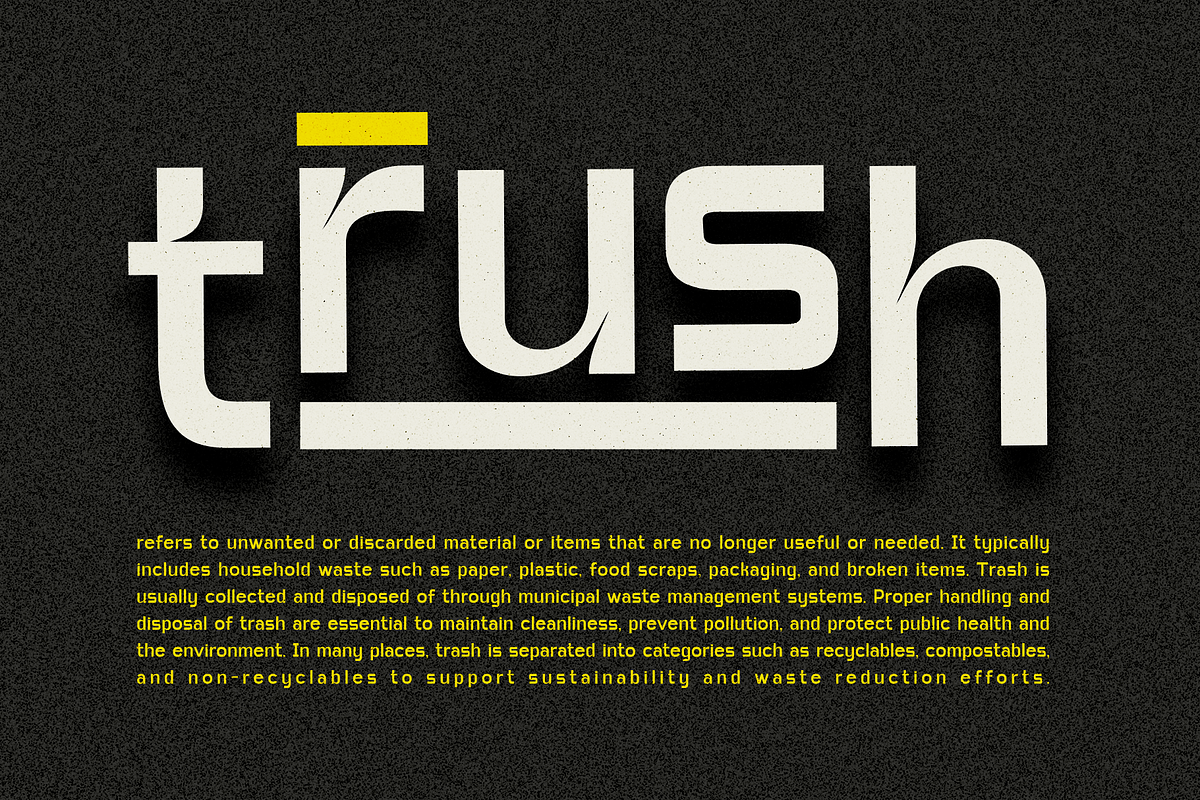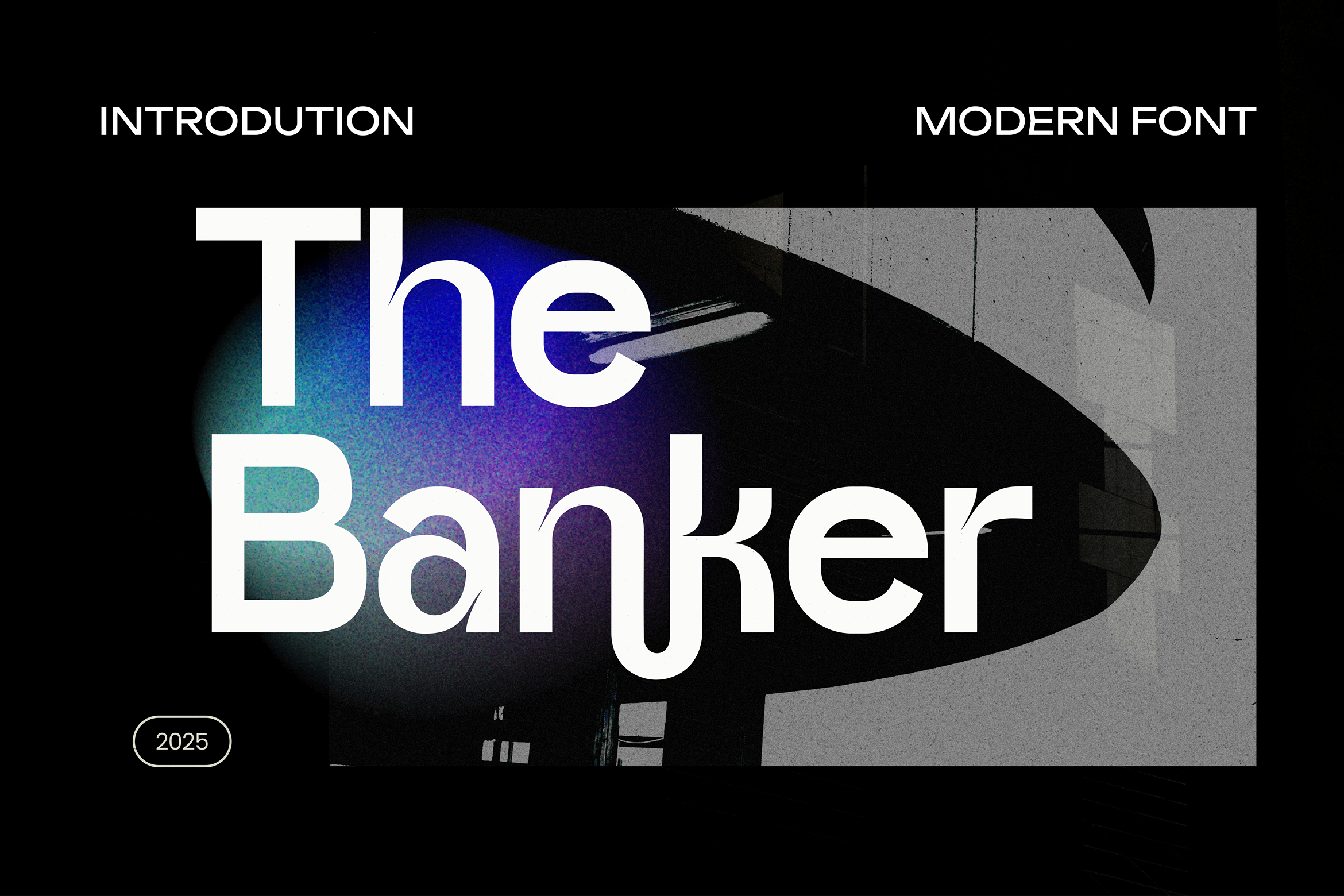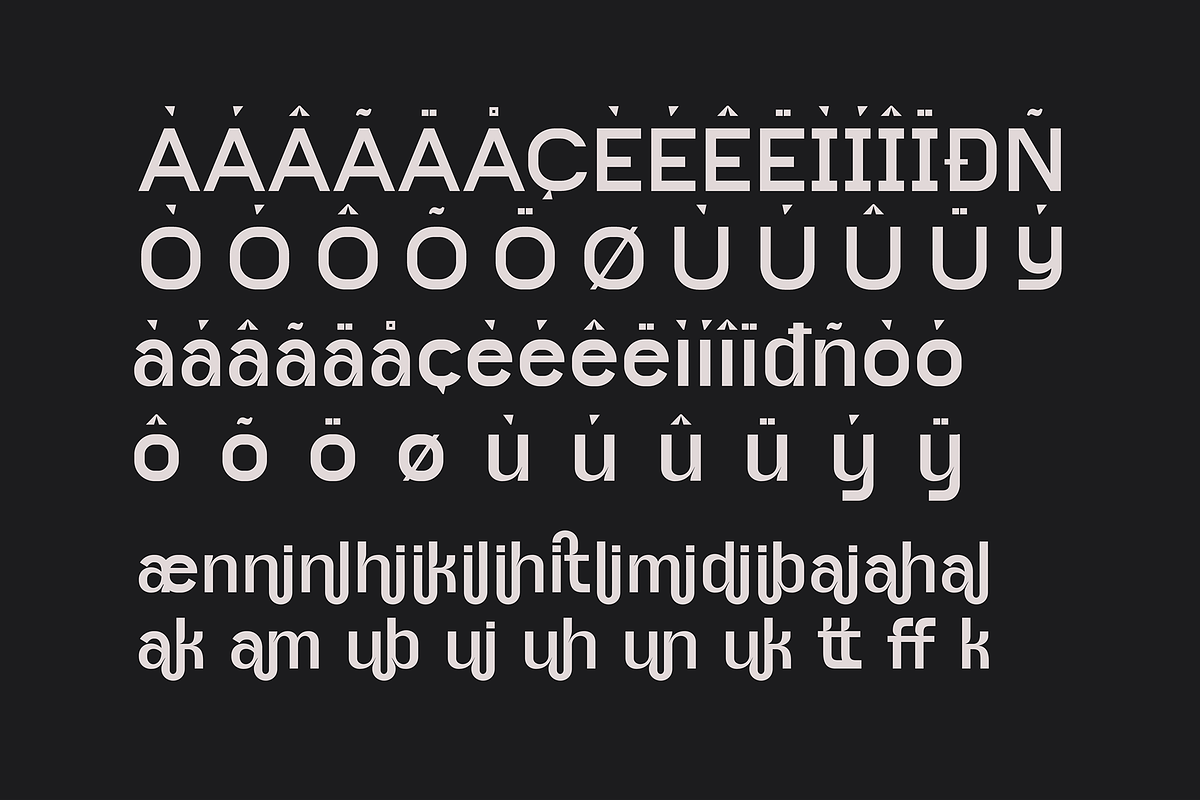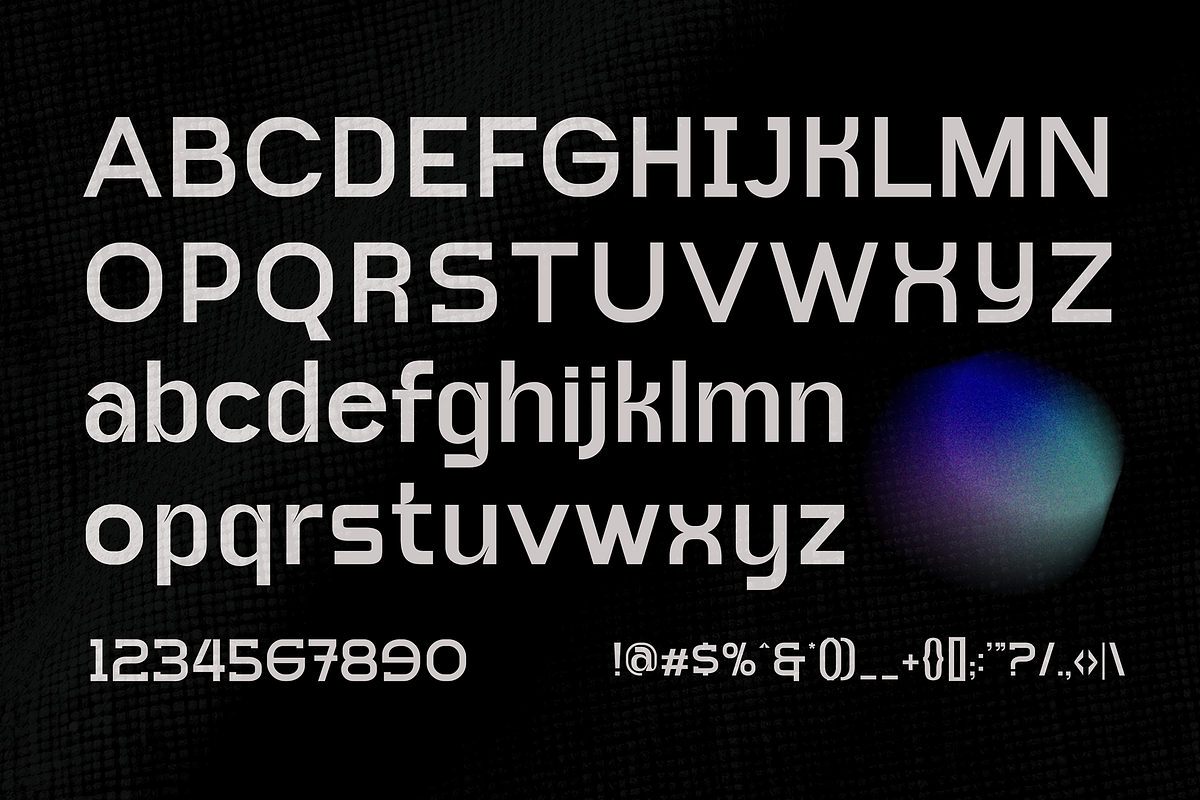
TheBanker San-serif Font
TheBanker is a bold, vintage-modern maximalist font featuring charming ligatures, special alternate glyphs, ornaments, and multilingual support. It is a highly versatile typeface that works well in both large and small sizes. Perfect for branding projects, logo design, fashion branding, modern templates, product packaging, magazine headers, or simply as a stylish text overlay for any background image.
TheBanker also includes a complete set of:
Uppercase and lowercase letters
Numbers and punctuation
Ligature characters